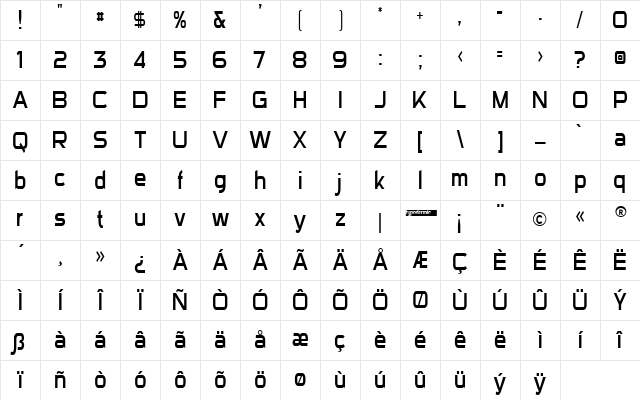
Sui Generis Condensed Light Regular
Foundry: Typodermic
Design Context for Sui Generis Condensed Light
Sui Generis Condensed Light is a composed and adaptable typeface that performs quietly and consistently across a wide range of design contexts. Its slender proportions lend an understated elegance to any composition. Its narrow stance lets it pack a punch even in space-constrained designs.